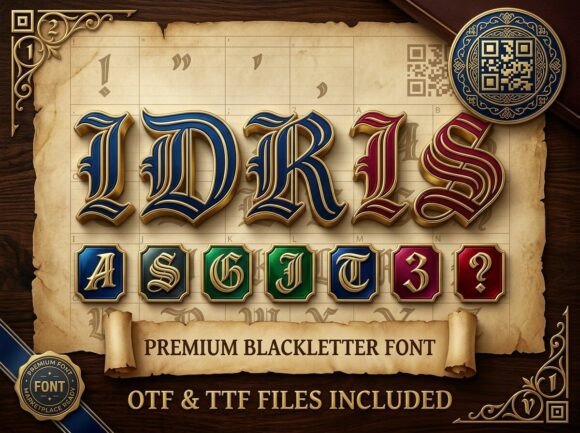
Introduction to Idris Font
Command respect with Idris, a high-definition Blackletter font that bridges the gap between medieval tradition and modern luxury.
Featuring a stunning tri-color palette of royal blue, crimson, and deep purple, each letter is finished with a 3D beveled effect and elegant inline detailing Idris is the premier choice for cinematic titles, luxury streetwear branding, certificate design, and spirit labels.